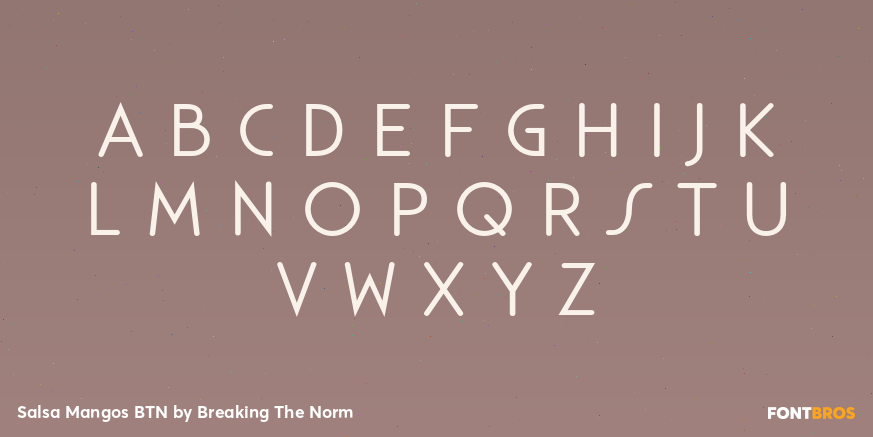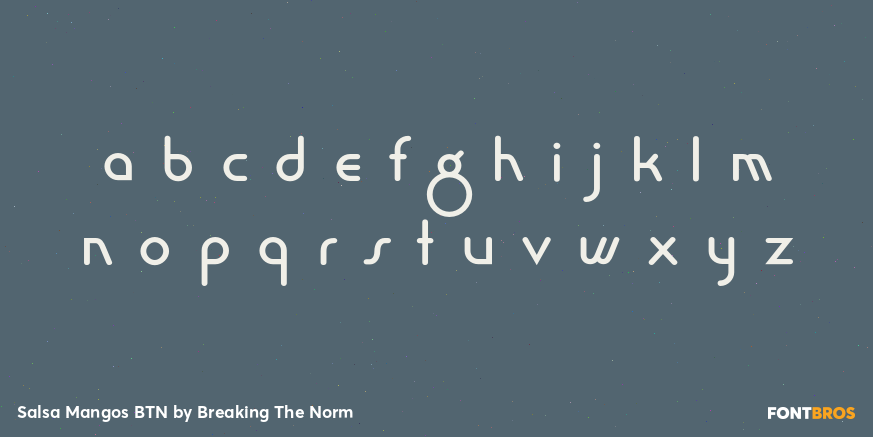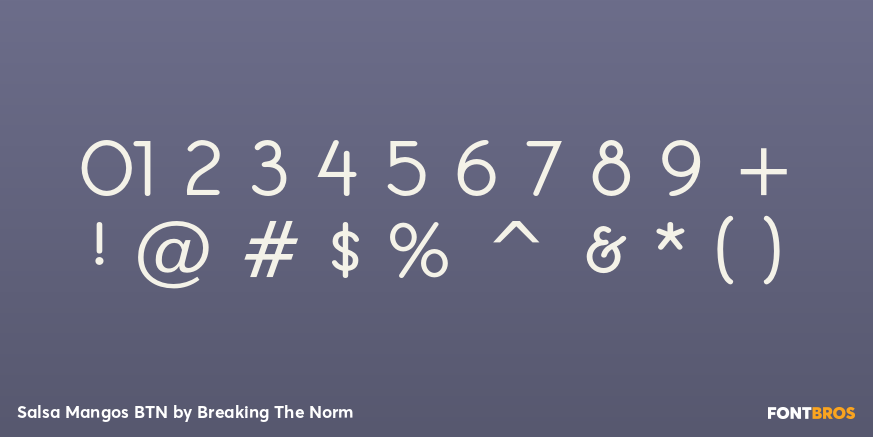
Salsa Mangos BTN
Font Family by Breaking The Norm
Salso Mangos is a smooth, deco typestyle inspired by the logotype for an old video game called Kangaroo.
Its stylish letter forms, simple and sleek, offer all the delicious deco flavor with no bad aftertaste.